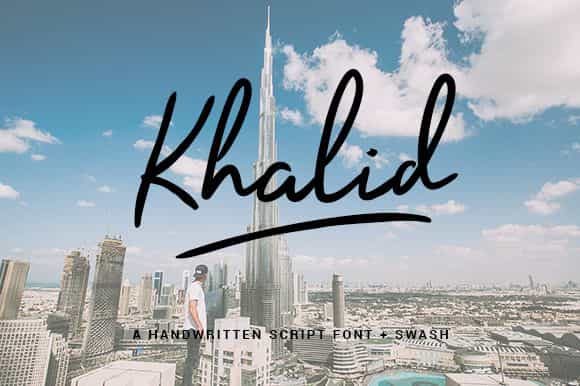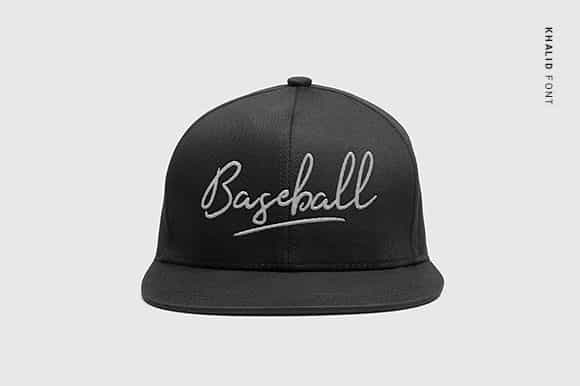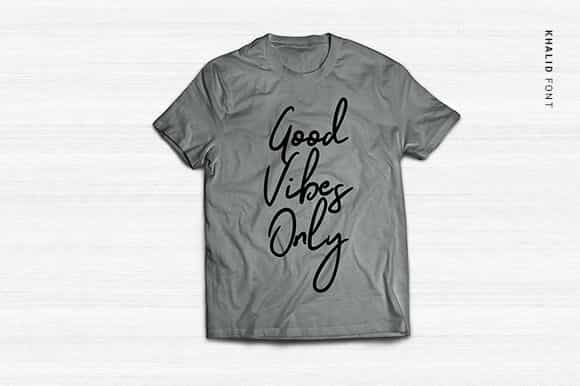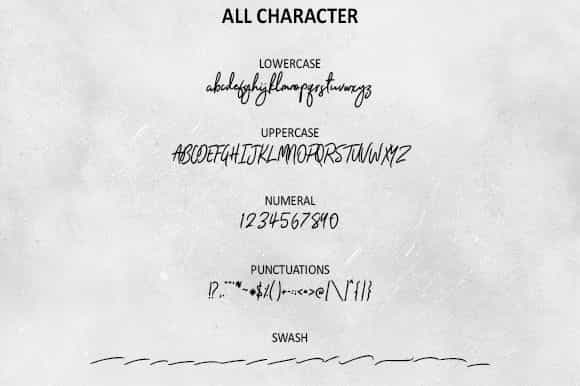
Discover Khalid Handwritten Font, part of the Brush Calligraphy Handwritten collection—a versatile and unique font perfect for adding a personal touch to your projects. Download it for free and enjoy crafting designs with style, from invitations to social media posts. This font is available exclusively for personal use, giving you the freedom to create without limits. Unlock your creativity with Khalid Handwritten Font today!
The Khalid is a high-quality expressive typeface made in handwriting style. It is designed in a modern way and has a regular and swash alternative, so you can generate various designs. Best suitable for photography, watermarks, social media posts, ads, logos, branding, invitations, gifts, products, labels, stationery, weddings, packaging, events and all else you want to add a touch of handwriting to.